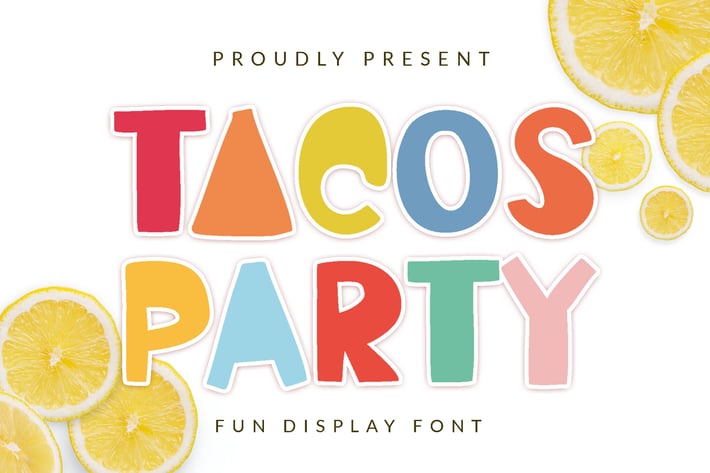
Tacos Party Advertisement Font
Tacos Party is a cute and cartoon-like display font. It embodies playfulness and authenticity and is the perfect choice for any children activity or school project. Add this chunky lettered font to your designs and notice how it makes them come alive!